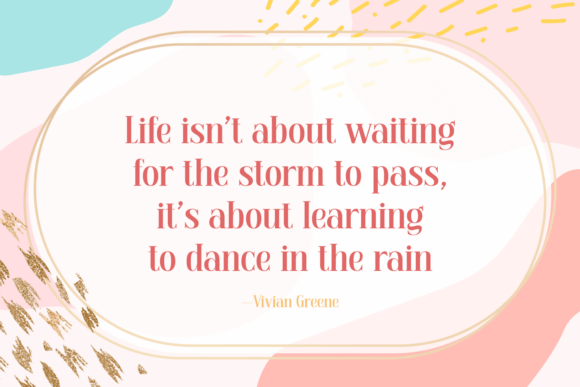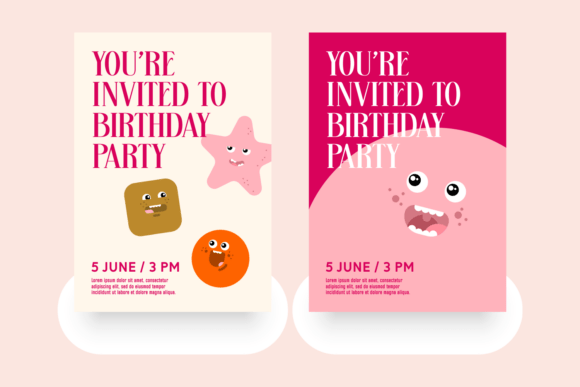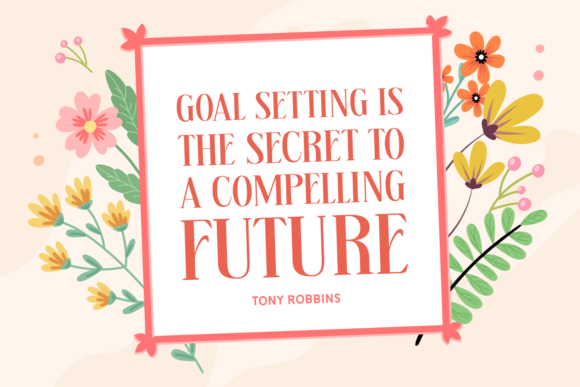
Introducing Always Patient Font: Your Diverse Typography Companion
In the world of typography, finding the perfect font that combines elegance, contemporary charm, and versatility can be a daunting task. However, look no further than “Always Patient,” a Serif font that is revolutionizing the way designers and crafters approach their creative projects. With its unique blend of classic and modern elements, Always Patient is the ideal companion for those seeking to elevate their visual storytelling.
Elegance and Contemporary Charm
Wrapped within its Serif lineage, Always Patient exudes sophistication and refinement. Its elegant strokes and carefully crafted letterforms evoke a sense of luxury and high-end quality, making it perfect for projects that require a touch of class. Whether you’re designing a book cover, creating a logo, or crafting a greeting card, Always Patient brings a level of sophistication that is sure to impress.
But what truly sets Always Patient apart is its contemporary charm. Its clean lines, subtle curves, and expertly balanced proportions give it a fresh and modern feel that is perfect for designers and crafters who want to stay ahead of the curve. This font is not just a pretty face; it’s a versatile tool that can be used in a wide range of applications, from fashion and photography to packaging and magazines.
A Home in Creative Realms
The craftsmanship of Always Patient finds an ideal home in various creative realms. In photography, for instance, this font can be used to add a touch of elegance to captions, titles, and descriptions. Its subtle yet distinctive character makes it perfect for accentuating key elements in an image, drawing the viewer’s attention to the most important details.
In the world of fashion, Always Patient breathes life into apparel designs with its neat and stylish expressions. Whether you’re creating a t-shirt design, a logo, or a label, this font is sure to make a statement. Its clean and smooth personality translates beautifully onto fabric, making it a popular choice among designers and crafters.
Bringing Authenticity to Your Projects
One of the standout features of Always Patient is its ability to bring an authentic atmosphere to your creative ventures. Whether you’re designing a book cover, a greeting card, or a logo, this font adds a touch of realism that makes your project feel more grounded and relatable.
With Always Patient, you can create designs that feel more personal and engaging. Its vibrant aura is infectious, drawing the viewer in and making them feel like they’re part of the story. Whether you’re a designer, crafter, or simply someone who loves to create, this font is sure to inspire you to new heights.
Trendy yet Timeless
Always Patient is more than just a font; it’s a design statement. Its bold yet cute personality makes it perfect for designers and crafters who want to create projects that are both trendy and timeless. Whether you’re creating a quote, a t-shirt design, or a logo, this font is sure to make a lasting impression.
So why choose Always Patient? For starters, its versatility makes it a valuable addition to any designer’s toolkit. Its clean and smooth personality ensures that it looks great on any platform, from magazines and packaging to apparel and accessories.
| Font Name | Always Patient Font |
| Author | Anto (7NTypes) |
In conclusion, Always Patient is a game-changing font that is sure to revolutionize the way designers and crafters approach their creative projects. With its elegant Serif lineage, contemporary charm, and versatile personality, this font is the perfect companion for anyone seeking to elevate their visual storytelling.
Key Features of Always Patient Font
- Elegant Serif lineage with a contemporary twist
- Clean and smooth personality perfect for various platforms
- Versatile and adaptable for use in fashion, photography, packaging, and more
- Perfect for book covers, greeting cards, logos, and apparel designs
- Trendy yet timeless, bold yet cute